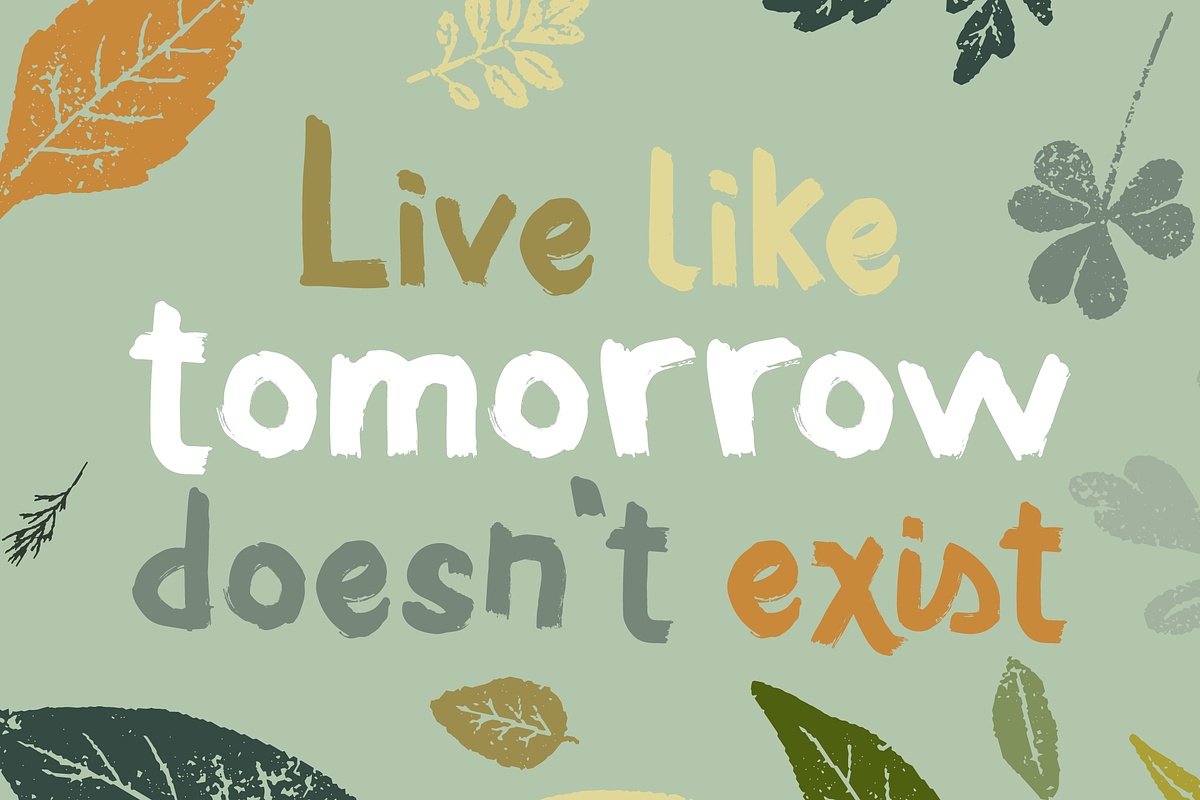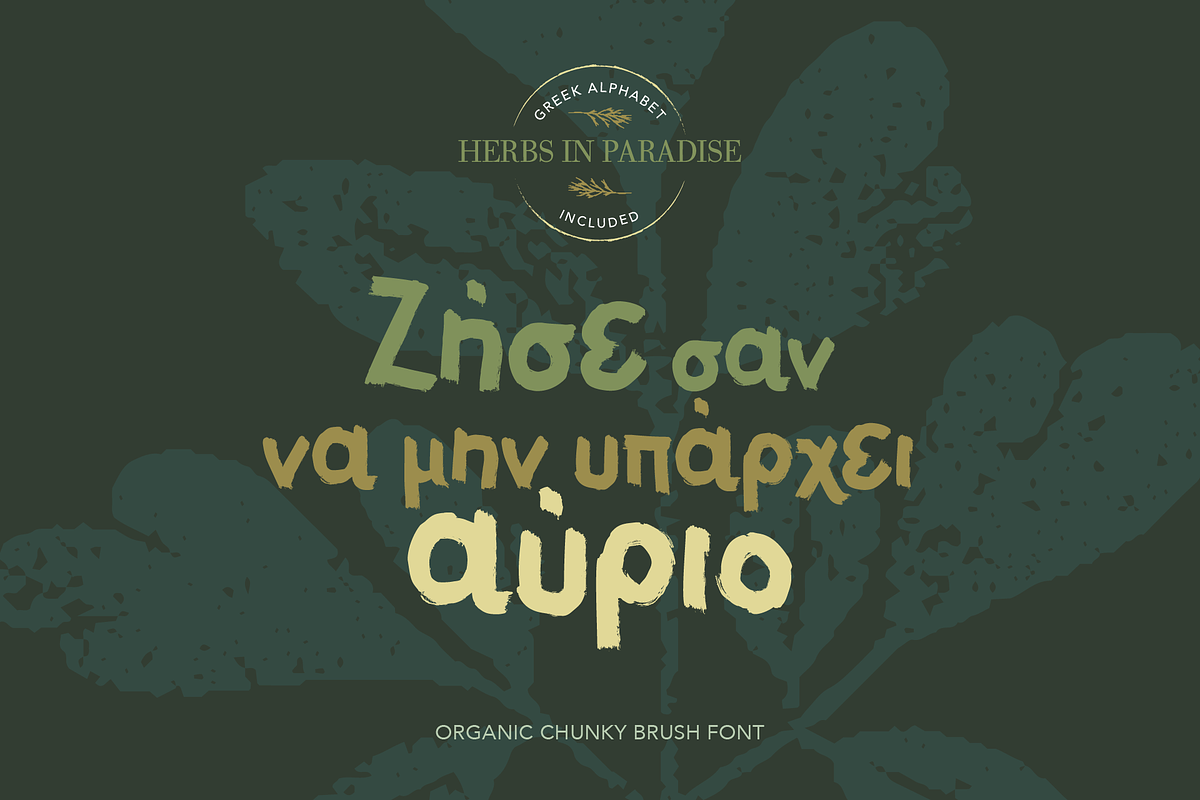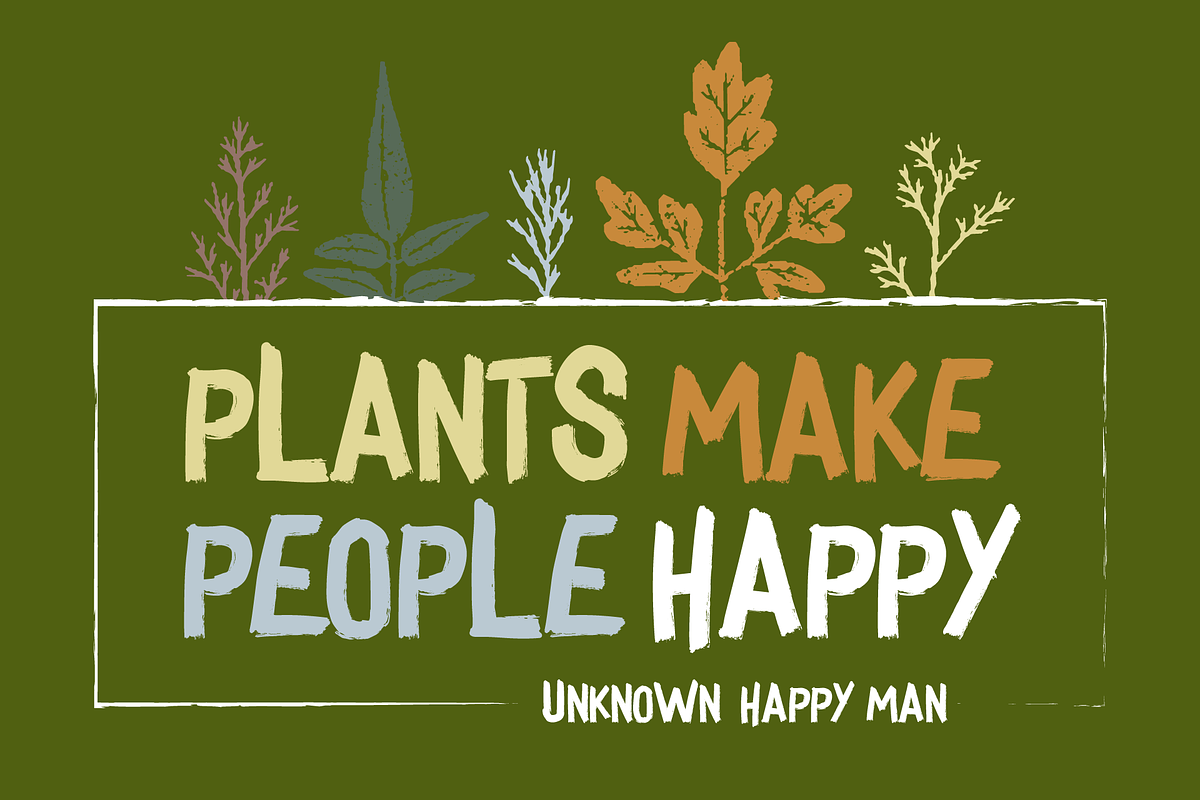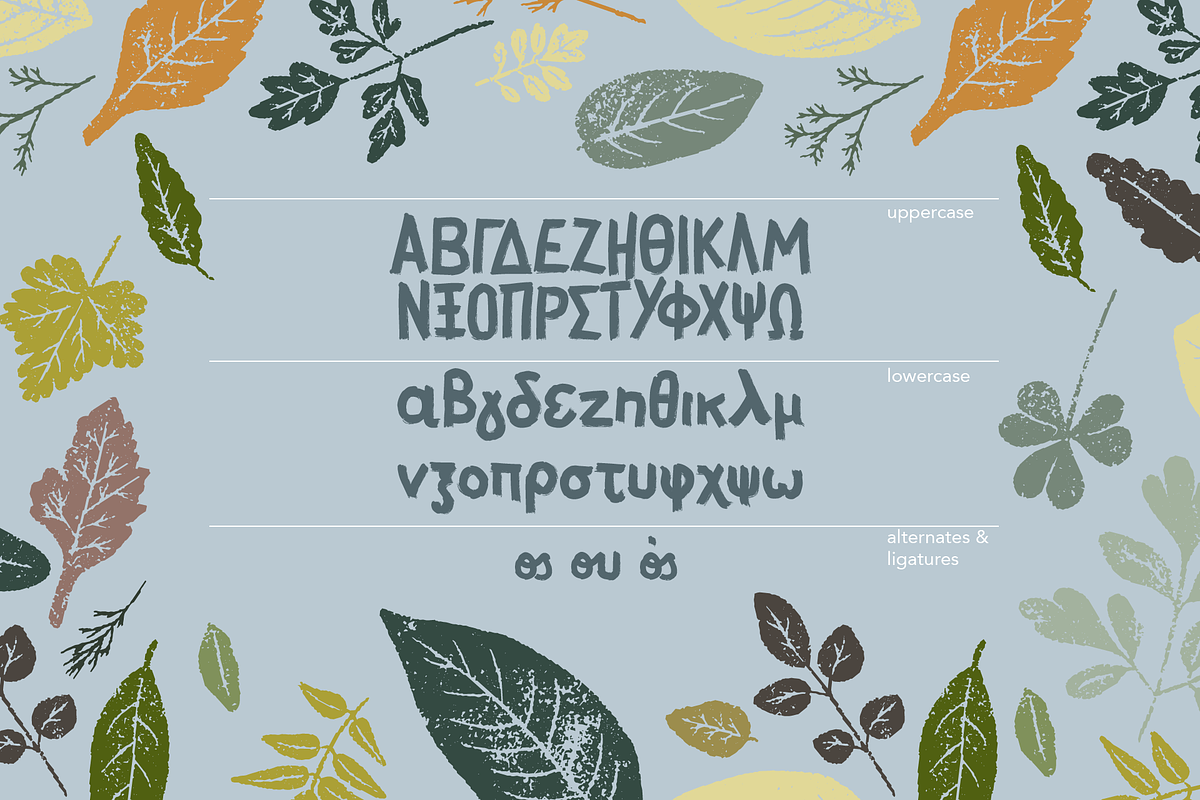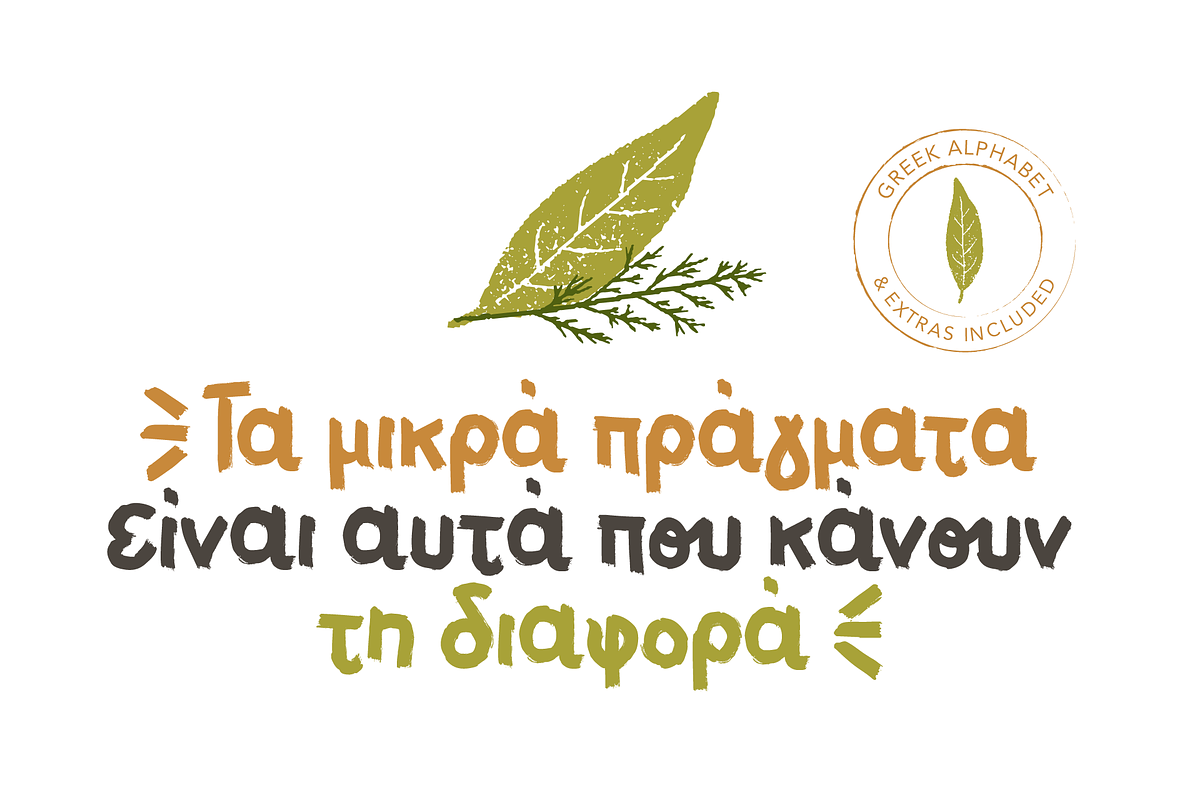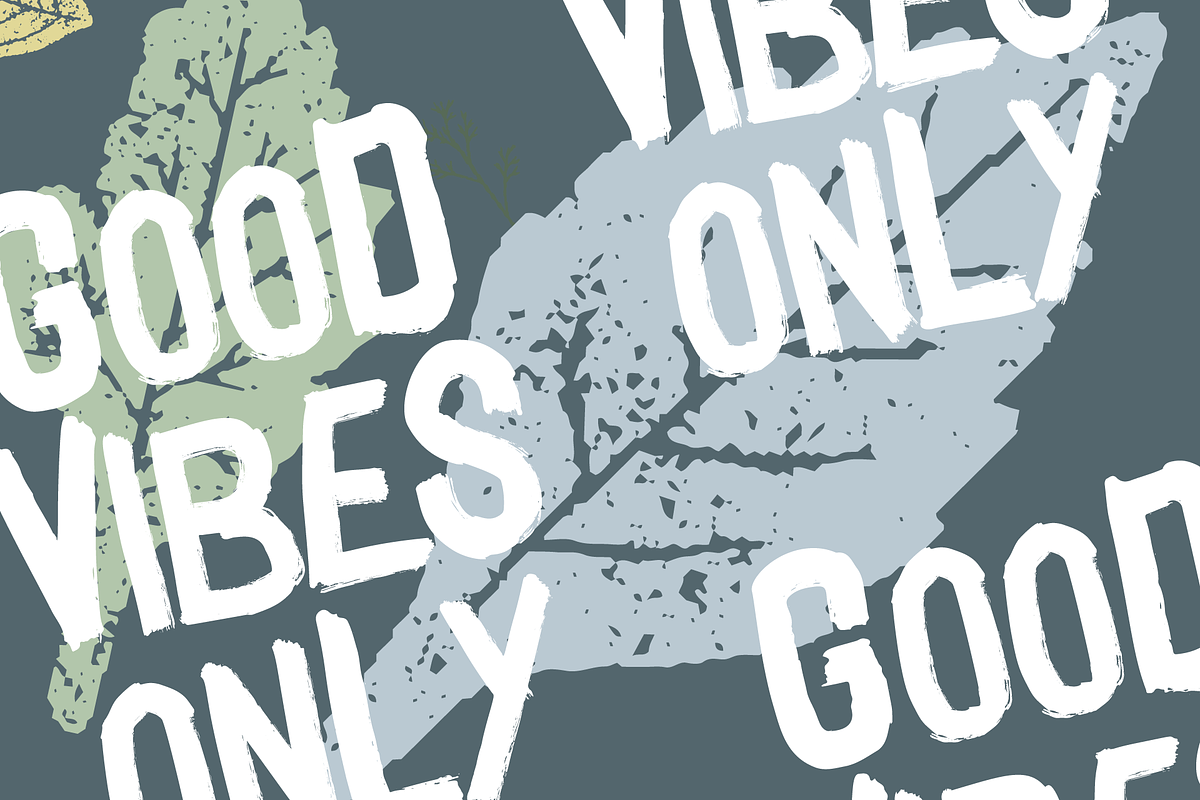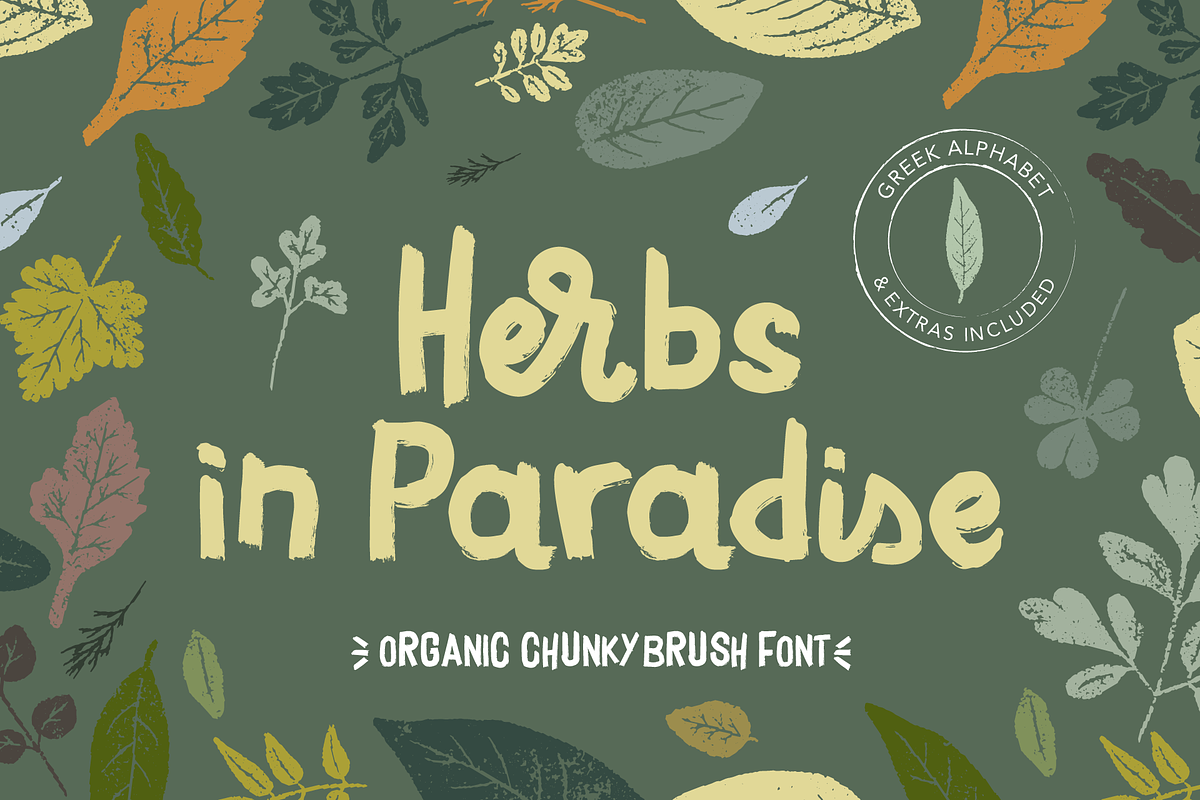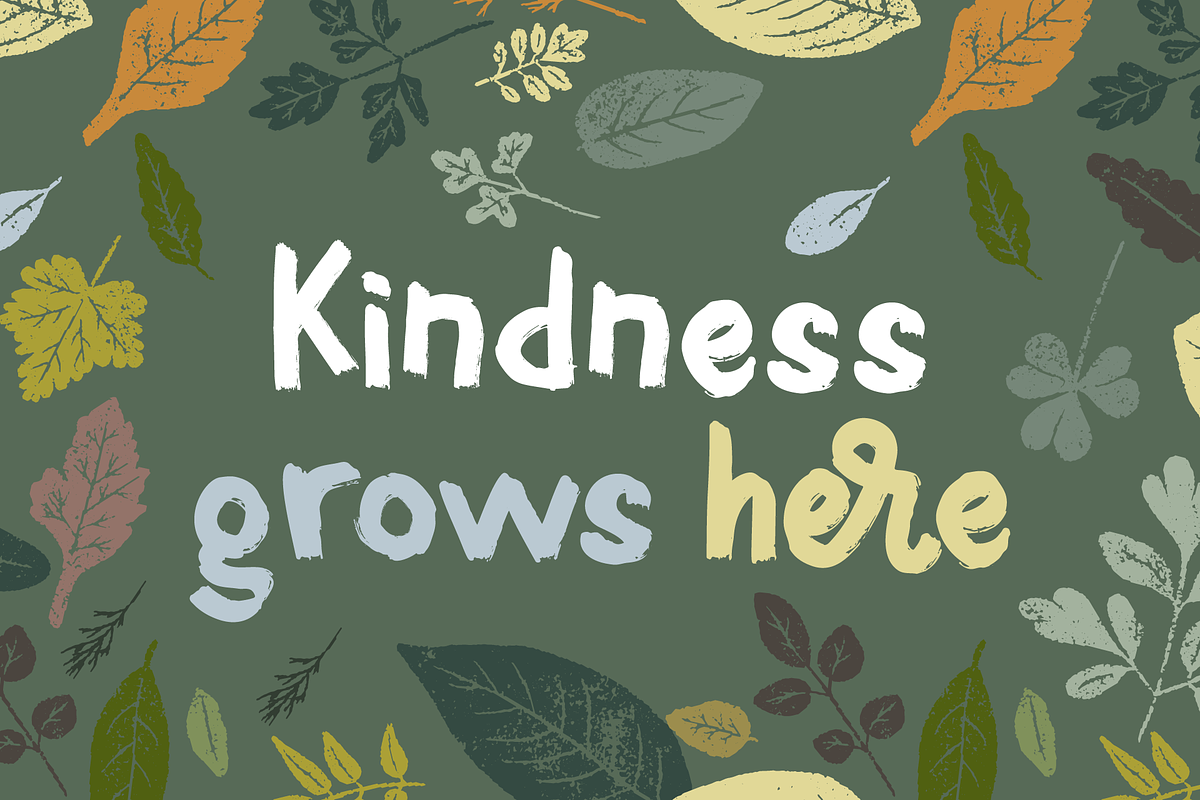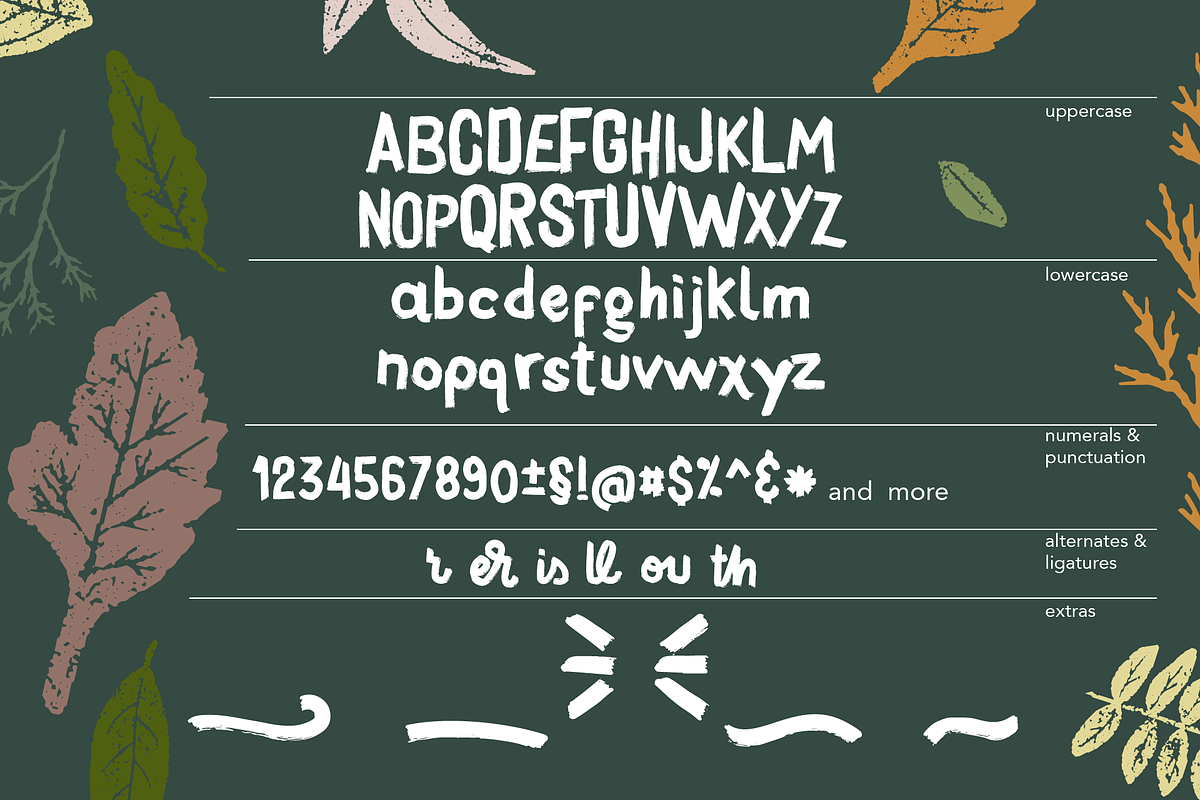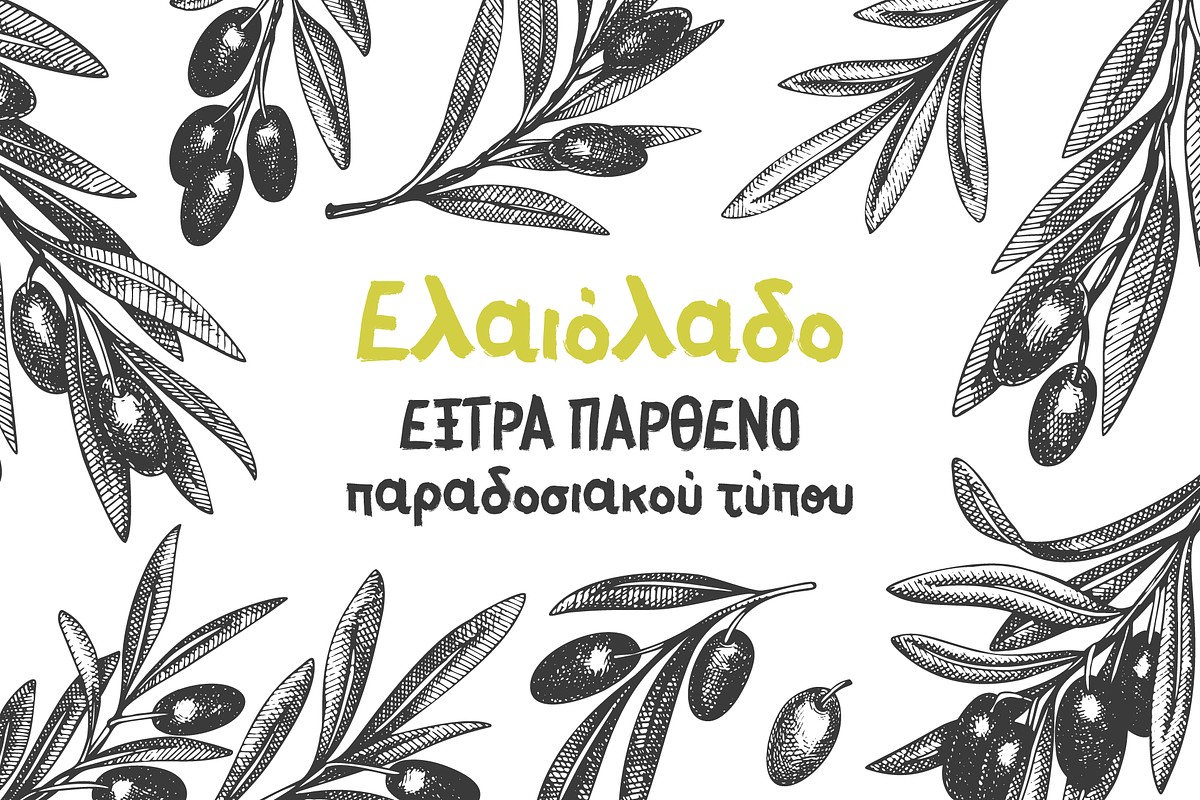
Herbs in Paradise
Hello fresh! Say hello to my new brush font, the perfect choice for creating quotes, social media posts bold designs, or just adding a touch of hand-written style to any project!
Plus the benefit that uppercase letters can give you a strong bold result in your design.
Herbs in Paradise font also has ligatures and some extra swashes in order to create a more realistic hand drawn design.
Last but not least this fun and a little bit of amateur brush font includes Greek characters and ligatures as well!